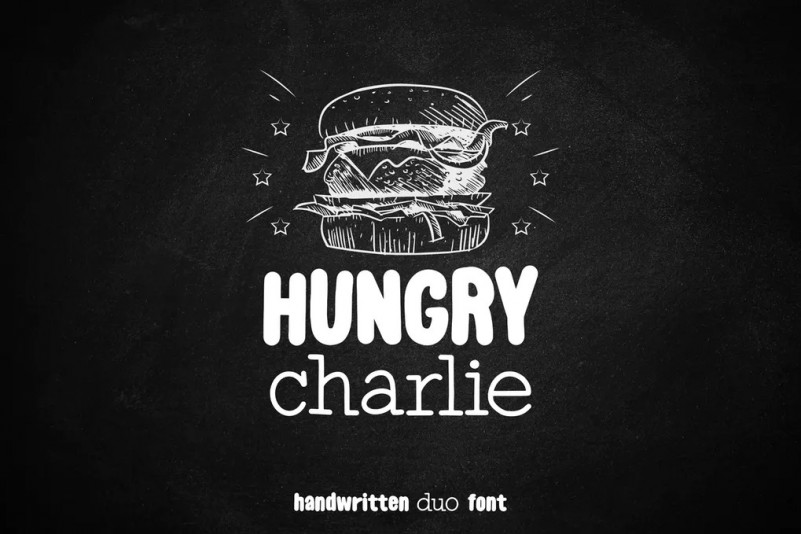
Hungry Charlie Font
Hungry Charlie is a handwritten font come with 2 styles, serif bold and sans serif. Work great for any design needs: logo, branding, modern advertising design, logos, poster quote, book/cover Title, editorial design, website/blog, card, custom mug, pillow, t-shirts, and any hand-lettered needs.